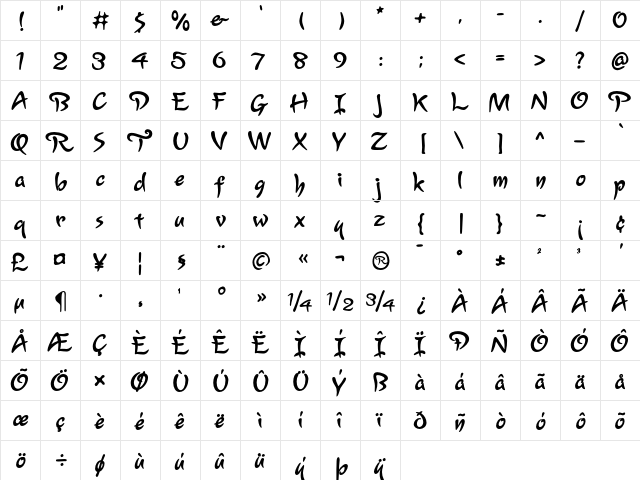
Lourdes Bold Bold
Design Context for Lourdes Bold Typeface
Lourdes Bold is a composed and adaptable typeface that performs quietly and consistently across a wide range of design contexts. Its bold stroke weight gives it real presence on the page.